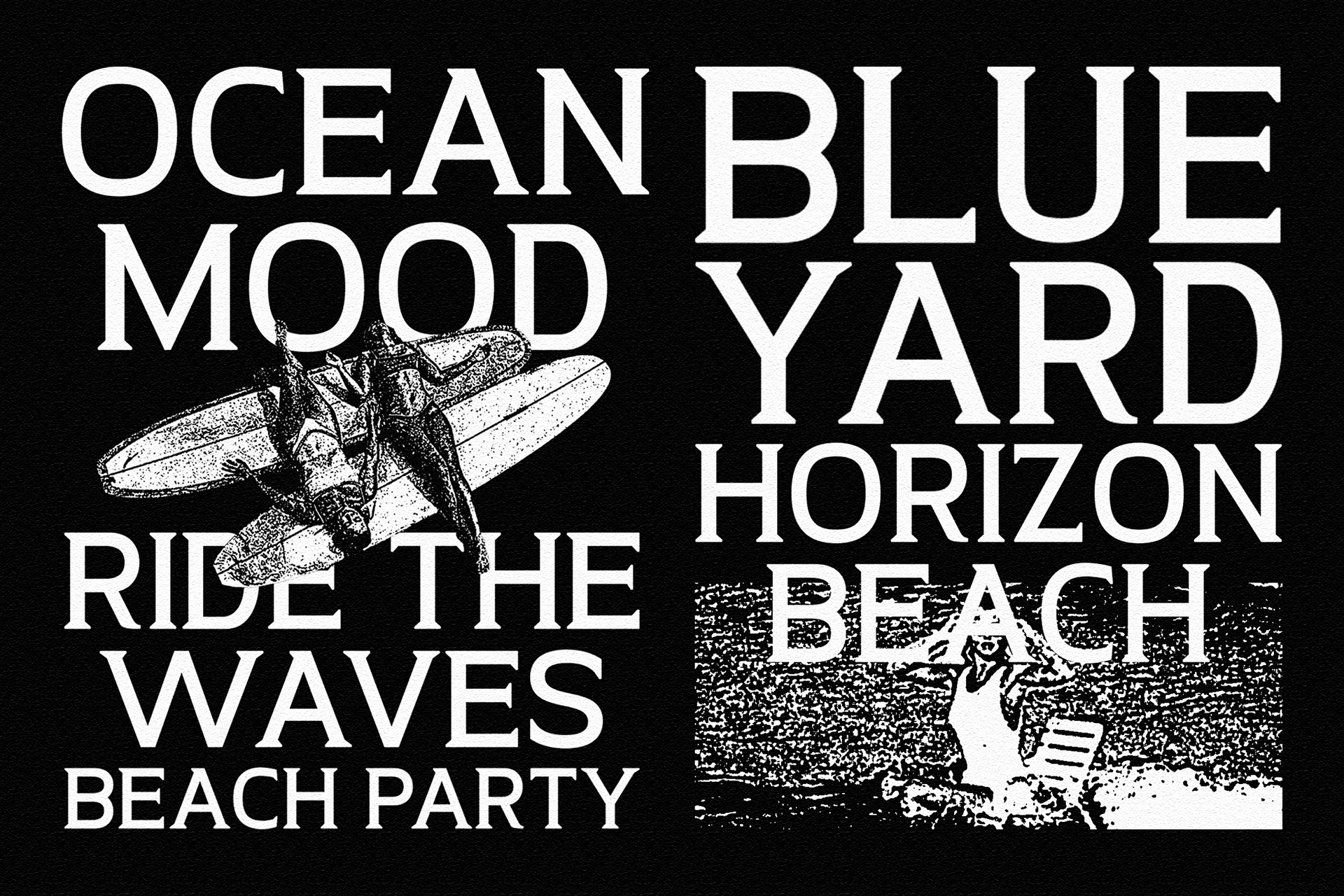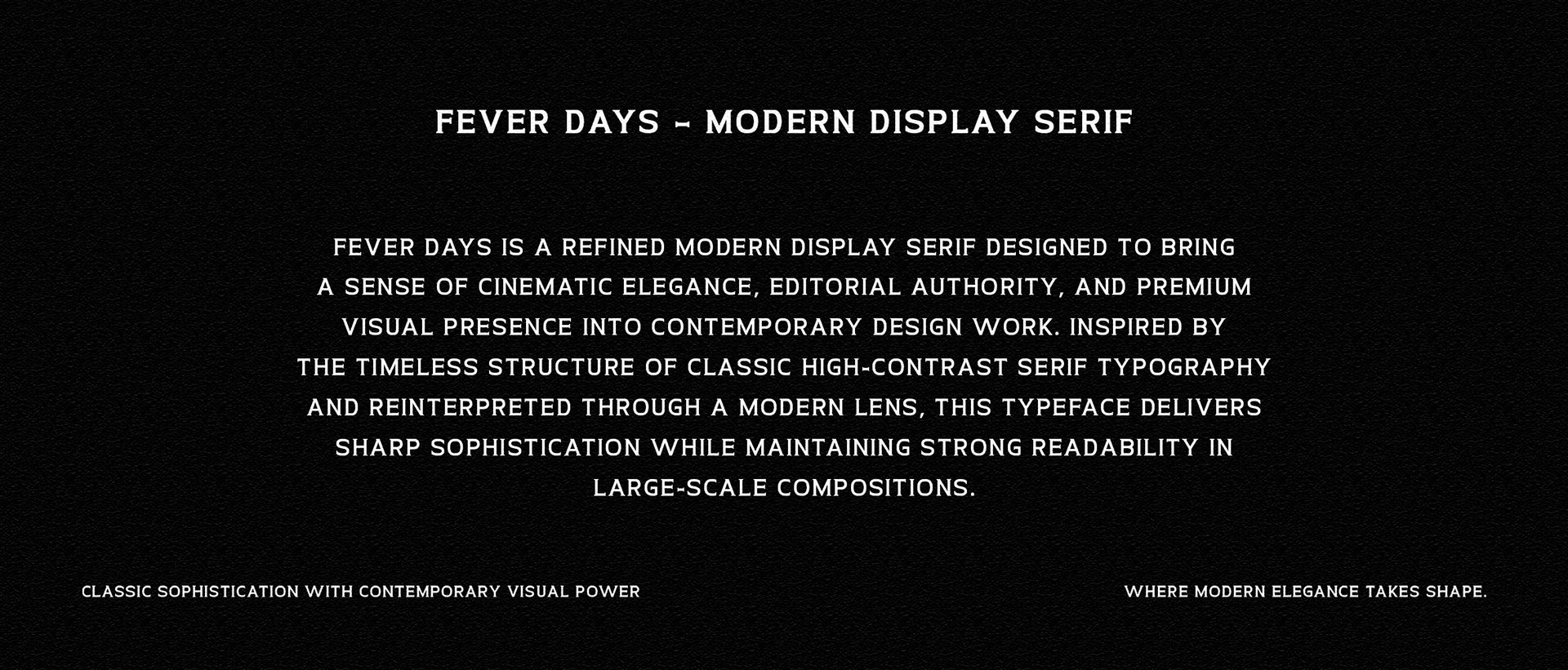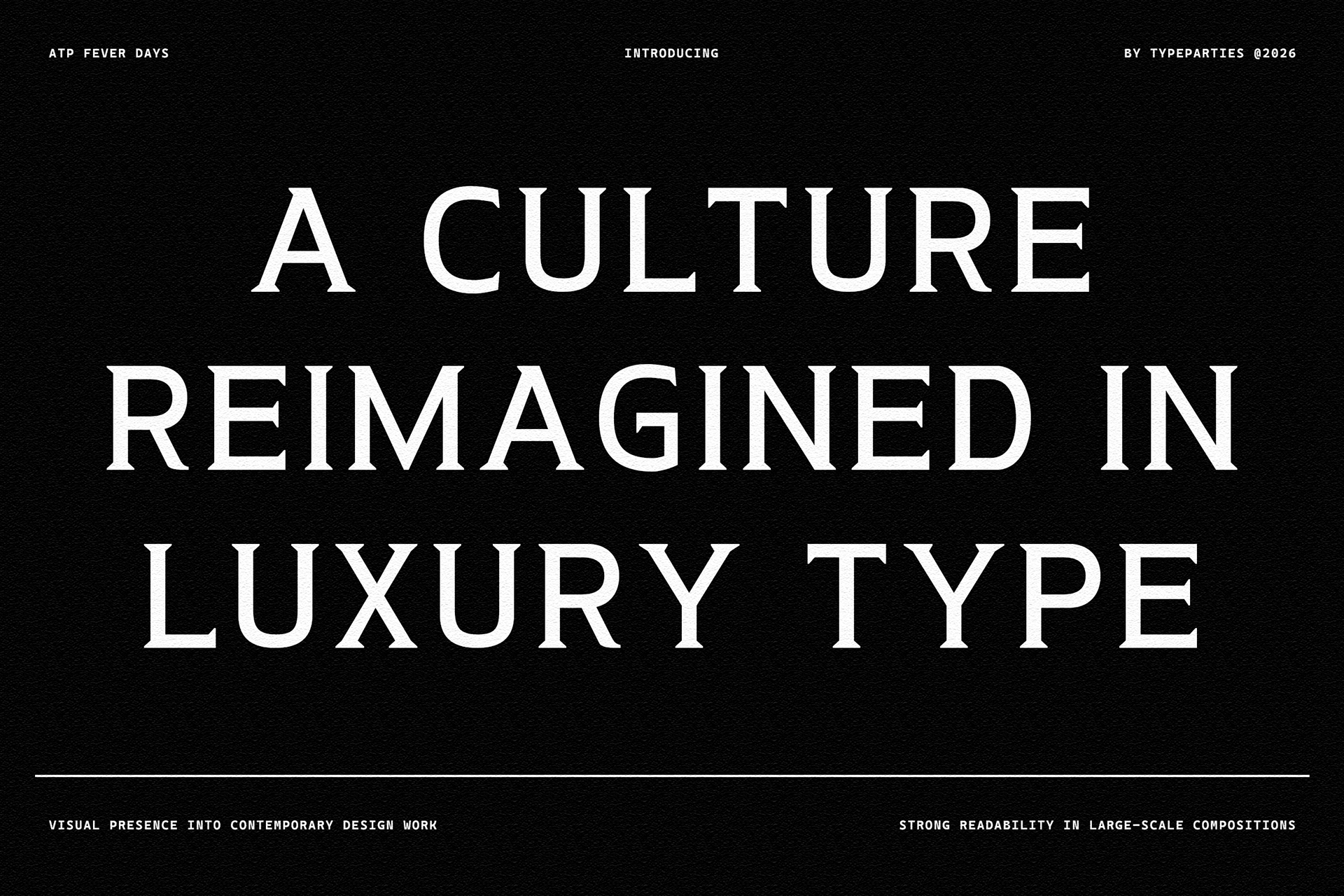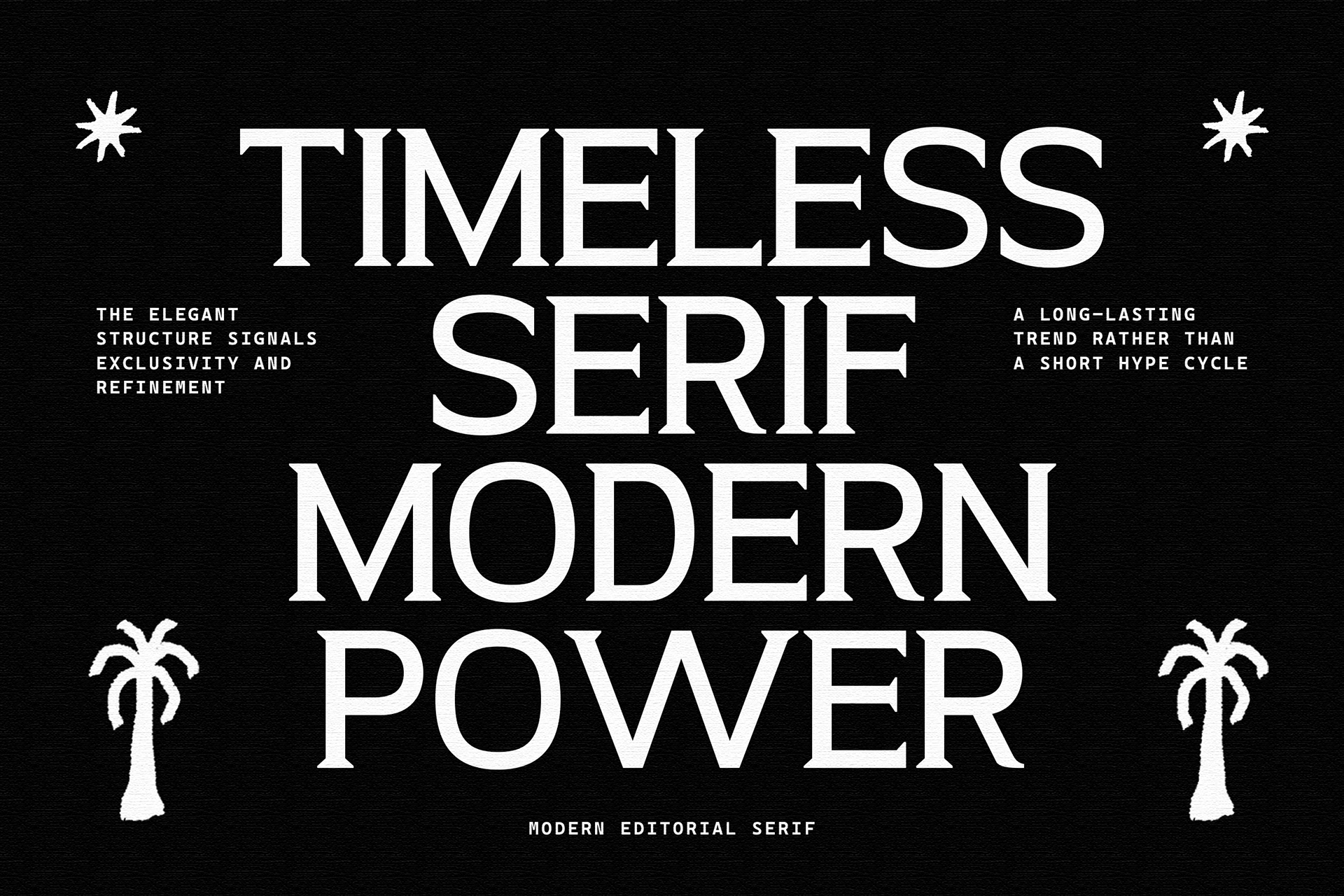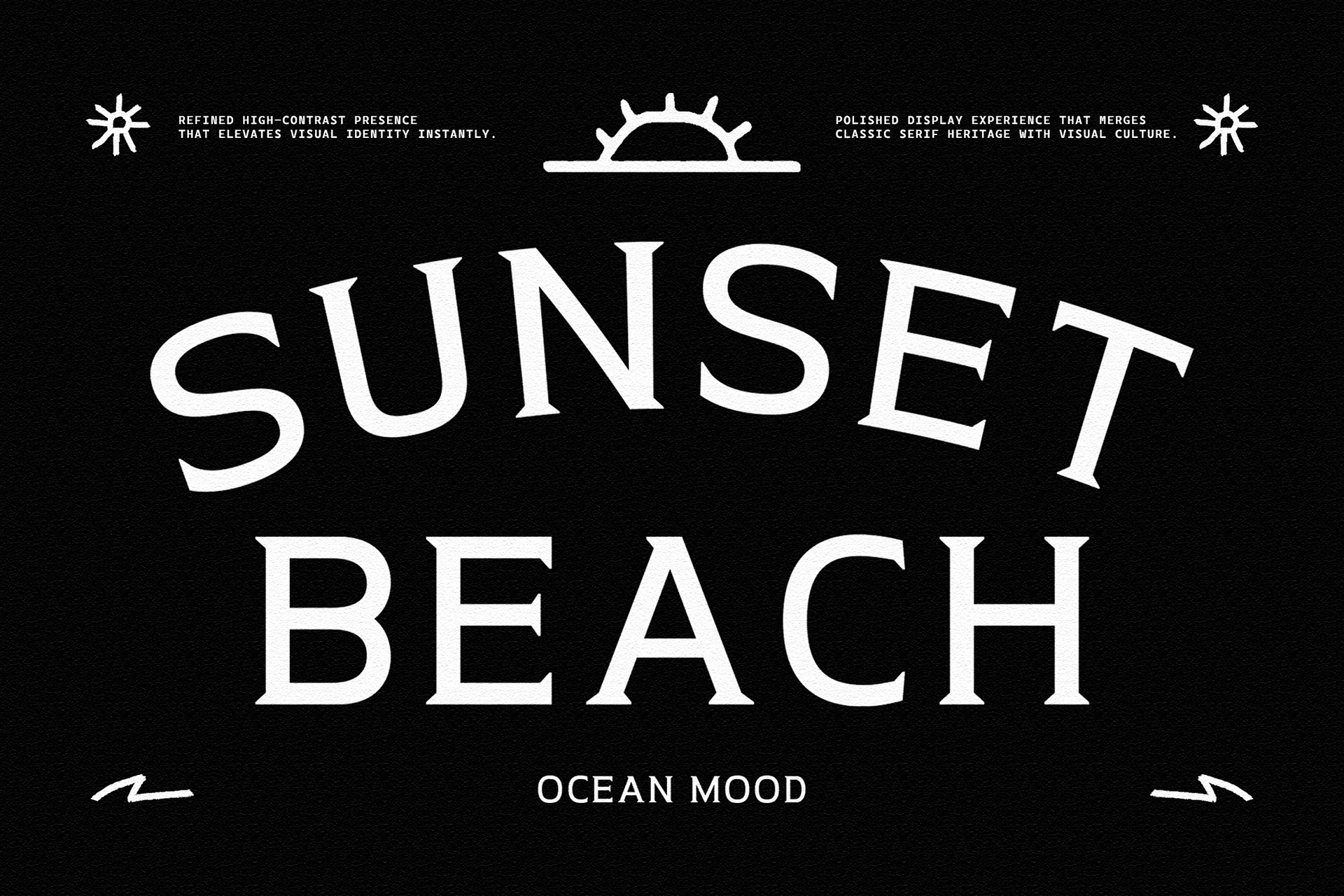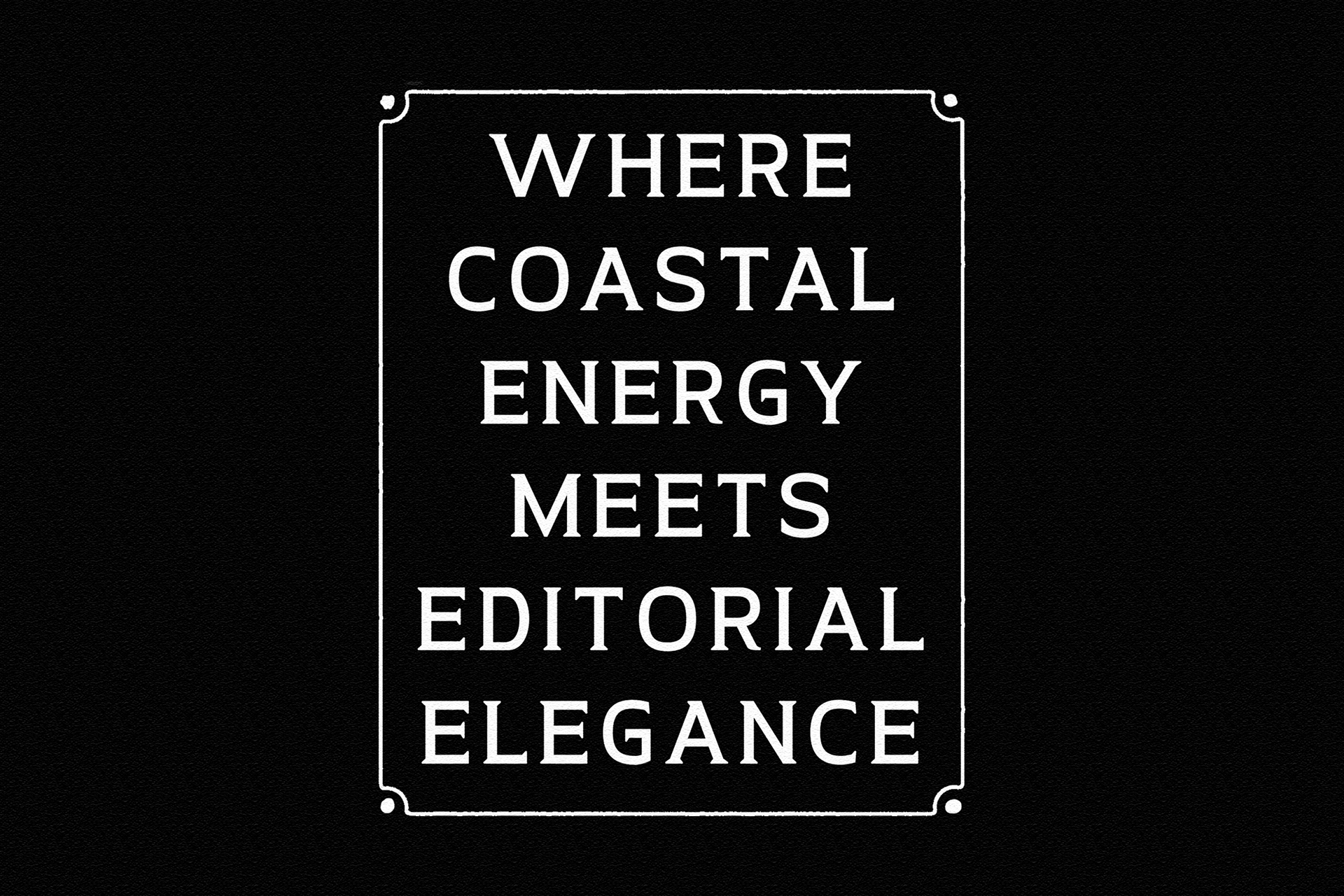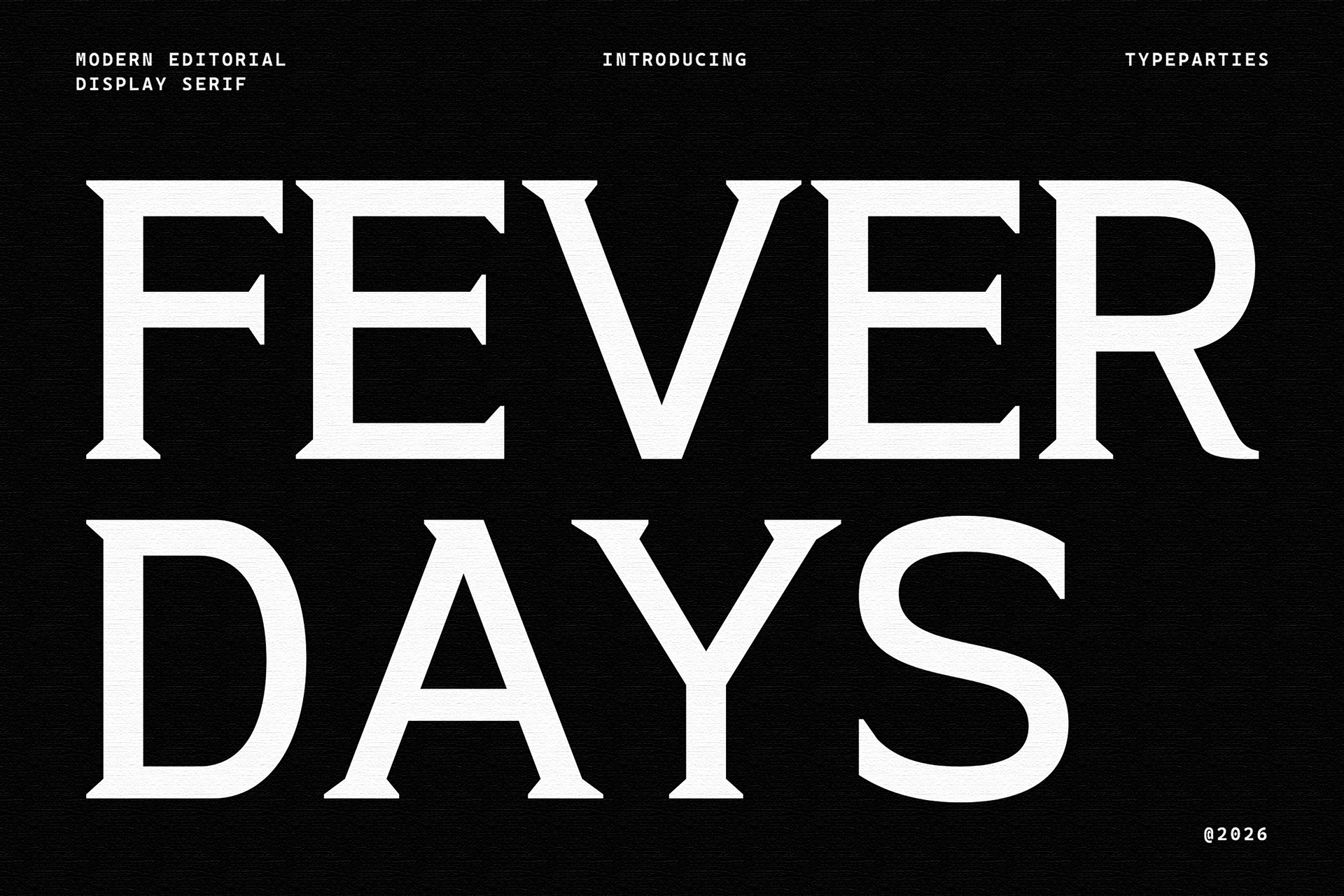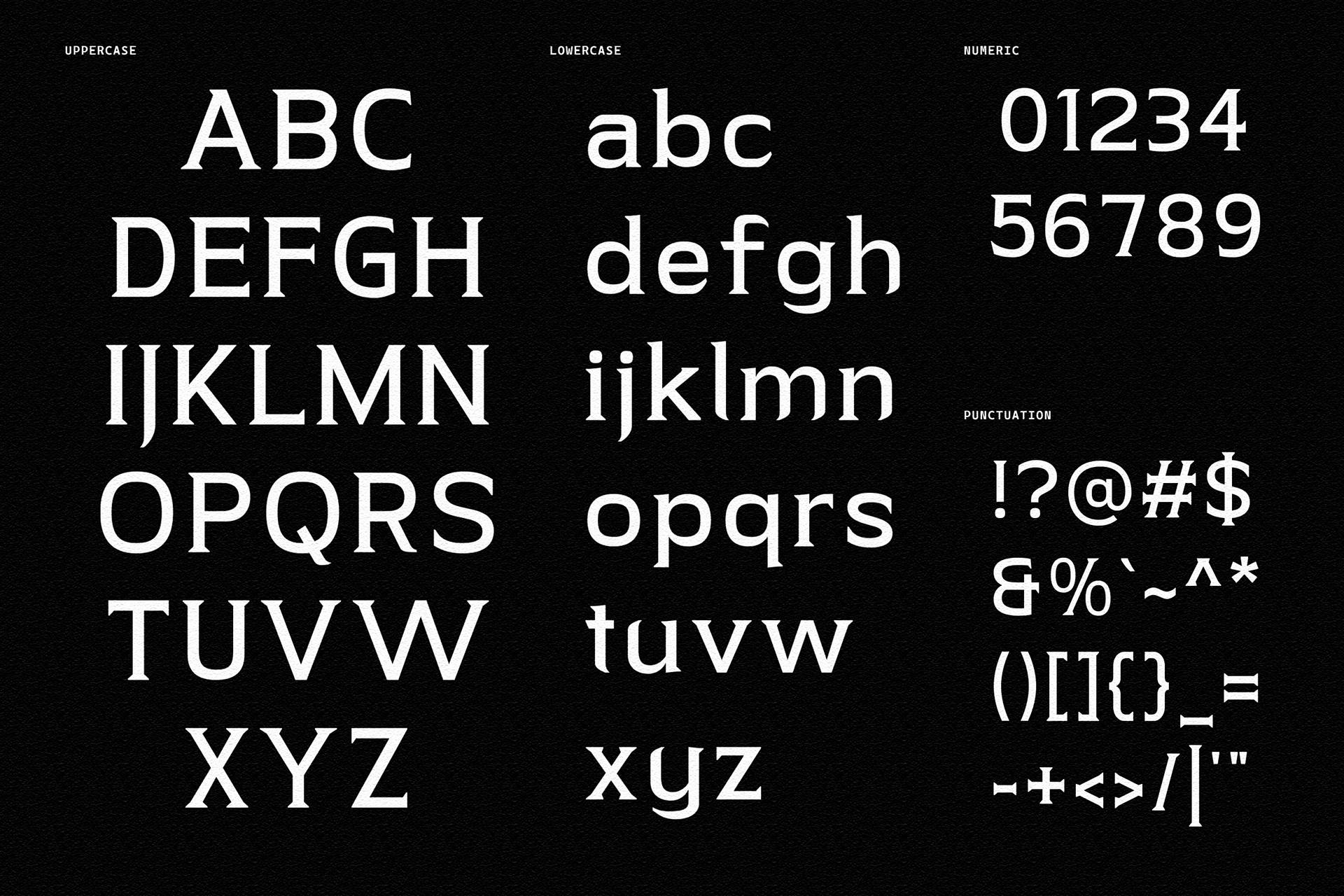
Fever Days – Modern Display Font
a refined modern display serif designed to bring a sense of cinematic elegance, editorial authority, and premium visual presence into contemporary design work.